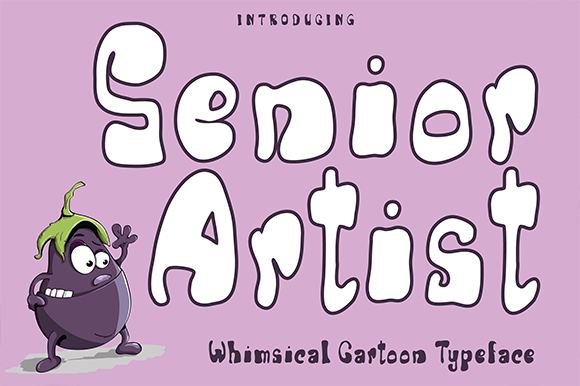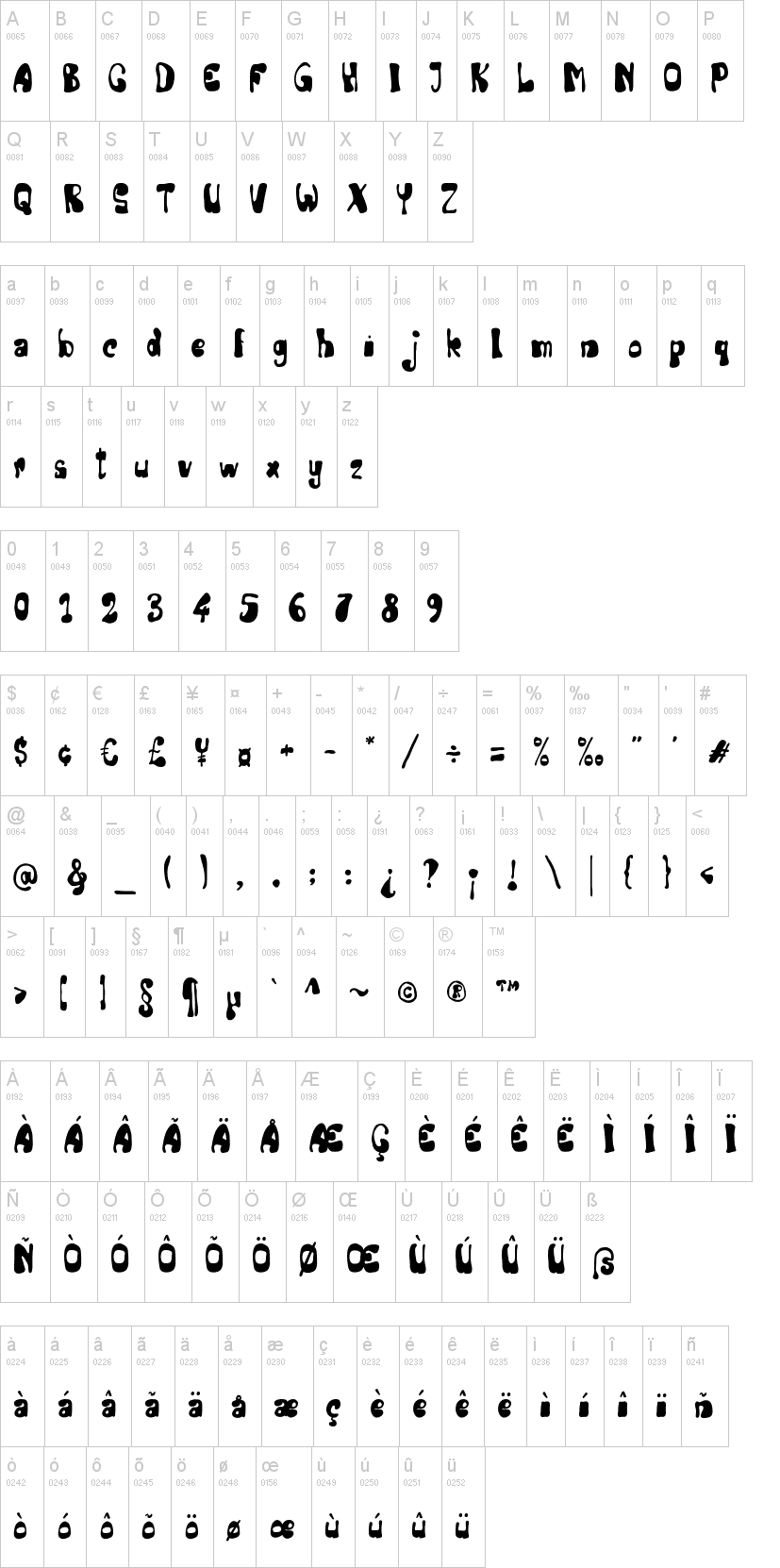
What a cool font!. This font is so unique, look at the letter "H", it weird but look cool. We can use this font to baby shirt, children book, candy logo, everything with fun and playful theme.
This cute font have 340 glyphs who complete support to Latin and Eastern Europe Characters.